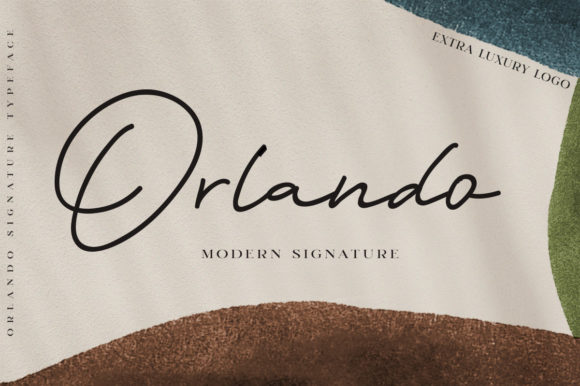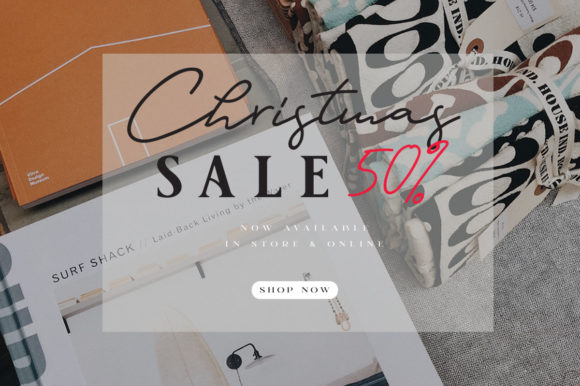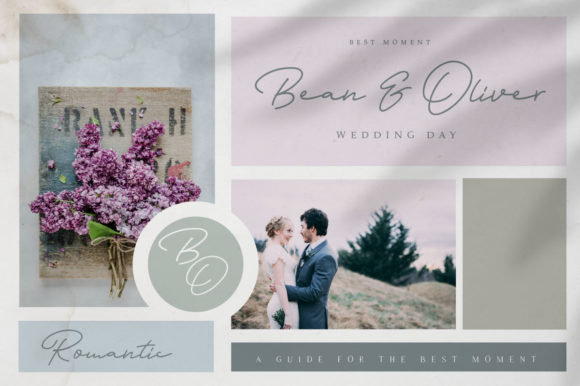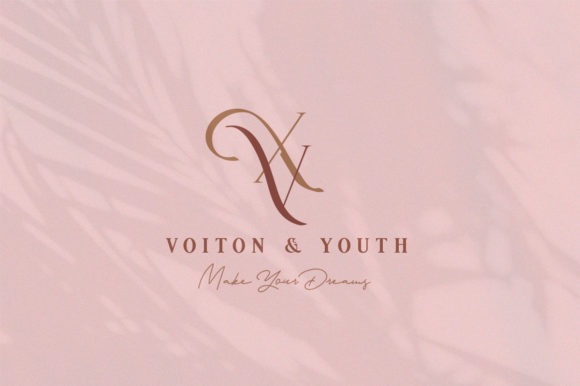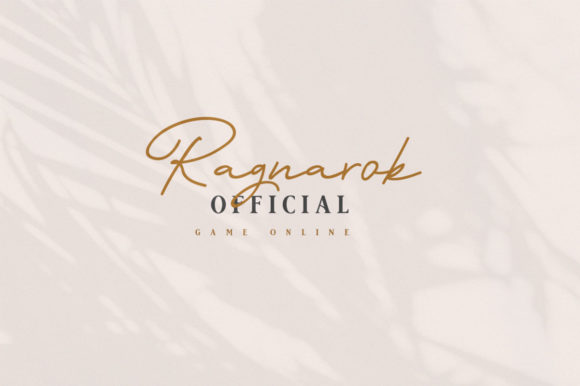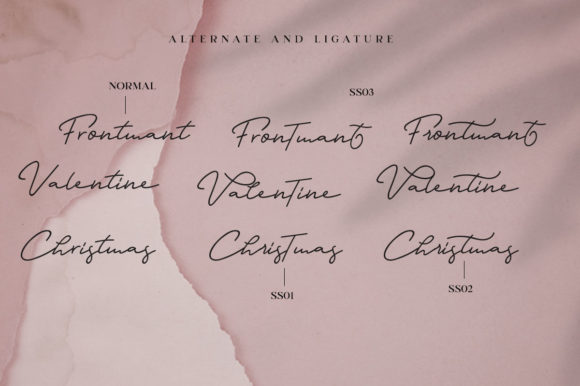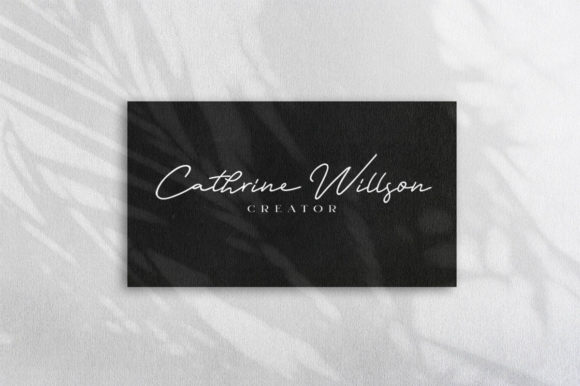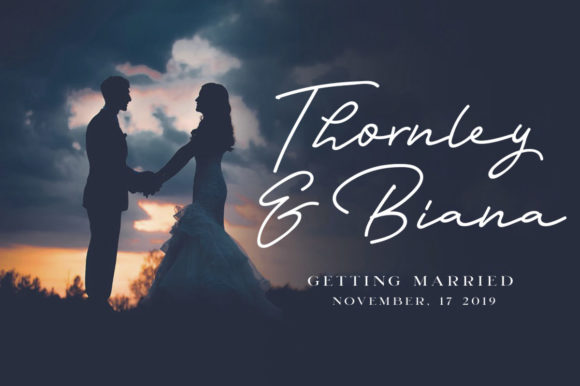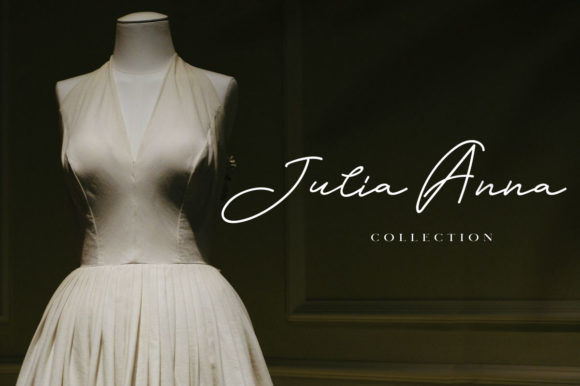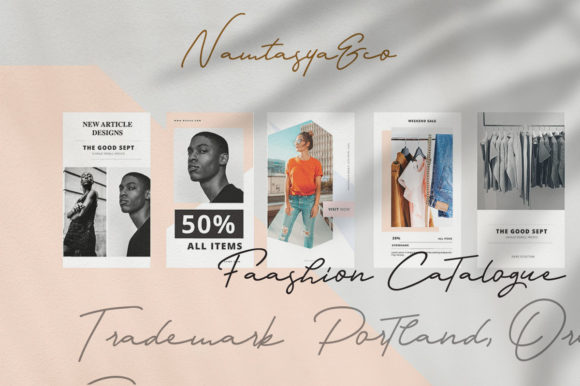
HomeScript FontsOrlando Font Script Fonts Orlando Font FacebookXPinterestWhatsApp Orlando Font Poster 2 Orlando Font Poster 3 Orlando Font Poster 4 Orlando Font Poster 5 Orlando Font Poster 6 Orlando Font Poster 7 Orlando Font Poster 8 Orlando Font Poster 9 Orlando Font Poster 10 Orlando Font Poster 11 Orlando Font Poster 12 Orlando Font Poster 13 Orlando Font Poster 14 About Orlando Font Orlando is a relaxed, luxurious and modern script font that delivers a unique font experience. DOWNLOAD NOW People also explored The Rain Font Bigfutz Font Gabriela Smith Font Realistic Mock-ups on Vintage Background Shadow Font Mermaid Queen Font Melodicstar Modern Calligraphy Font Yasintha Font RunTron 1983 320 0 TagsOrlando Font Previous articleJonesly FontNext articleHatchy Font LEAVE A REPLY Cancel reply Comment: Please enter your comment! Name:* Please enter your name here Email:* You have entered an incorrect email address! Please enter your email address here Website: Save my name, email, and website in this browser for the next time I comment. Personal Use Free Braindly Personal Use Free Read more about this font Madison Script Personal Use Free Read more about this font Waturaden Personal Use Free Read more about this font Loving Personal Use Free Read more about this font BLOG The 10 Best Handwriting Fonts to Add Personality to Your Designs 10 of the Best Handwriting Fonts for Adding Personality to Your Designs There will undoubtedly be no other better choice than handwriting fonts to give... Top 7 Google Fonts Alternatives for Faster and Privacy-Friendly Web Design (2025) Where to Buy American Fonts Online in 2024 5 Fonts That Will Dominate Design Trends in 2026